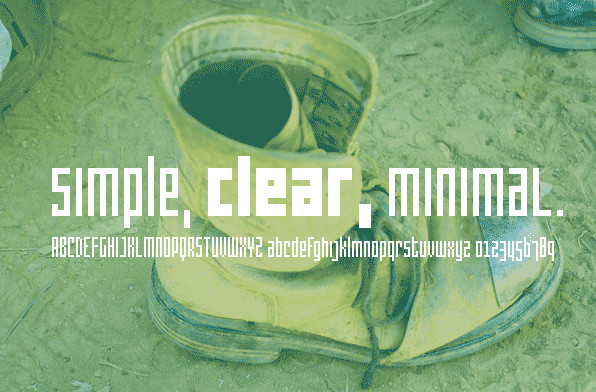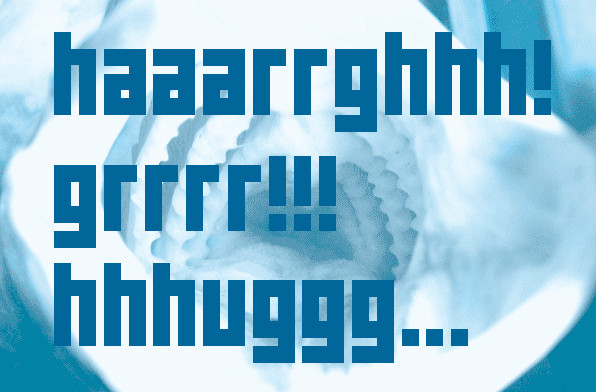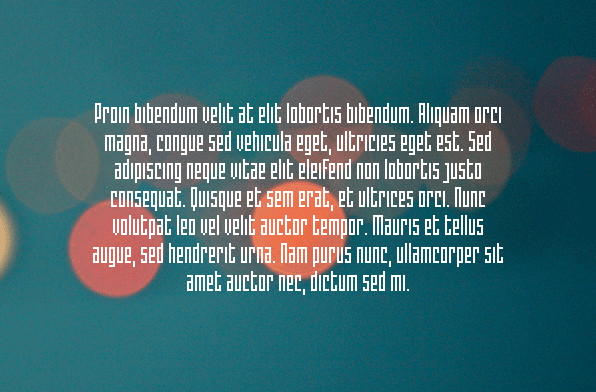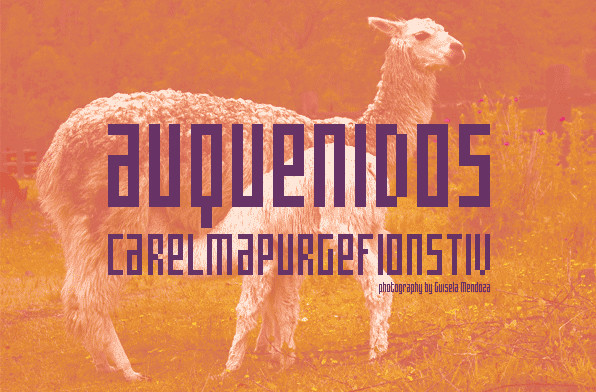
Cachiyuyo
Foundry: MendozaVergara
Cachiyuyo is a bitmap font designed for screen titles and to be printed, has a large x height, is very tight and orthogonal. Cachiyuyo is meant for short texts and simple layouts.